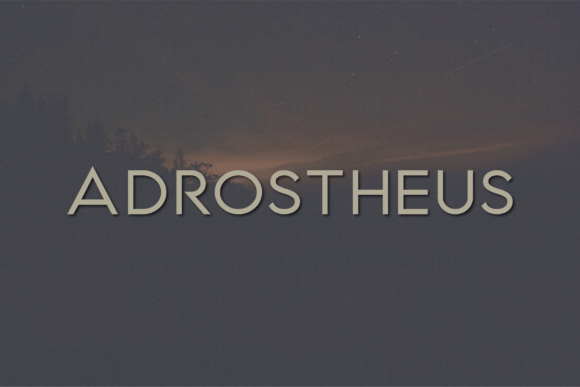
Discover the Elegance of Adrostheus Font
I’ll never forget the time I was working on a wedding invitation project, and my client asked for a font that was both modern and classy. I scoured the internet, tried out countless fonts, but nothing seemed to fit the bill. That was until I stumbled upon Adrostheus, a stunning sans serif typeface that instantly elevated my design. In this article, I’ll share my love for Adrostheus, its features, and how to make the most of it in your designs.
What Makes Adrostheus Special?
Adrostheus is a versatile sans serif typeface that includes upper characters, numbers 0-9, and a range of punctuation and symbols. Its clean lines and modern aesthetic make it perfect for a wide range of applications, from logos, weddings, and invitations to quotes, advertisements, print, magazines, and more!
Here’s what I love about Adrostheus:
- ✨ Extremely versatile and adaptable to various design projects
- ✅ Clean and modern sans serif design
- ✅ Includes a wide range of characters, numbers, and symbols
- ✅ Perfect for both digital and print designs
And here are some minor quirks to keep in mind:
- ⚠️ Some users might find the font a bit too minimalist for certain projects
- 🤔 Limited stylistic alternates, but still offers great flexibility
The Story Behind Adrostheus
Adrostheus was designed with the goal of creating a modern, classy sans serif typeface that could be used in a wide range of applications. The designer drew inspiration from classic sans serif fonts, while incorporating modern elements to create a unique and versatile font.
| What type of projects is Adrostheus best suited for? | Adrostheus is perfect for logos, weddings, invitations, quotes, advertisements, print, magazines, and more! |
| Does Adrostheus include OpenType features? | Yes, Adrostheus includes OpenType features, such as ligatures and stylistic alternates, to add visual interest to your text. |
| Is Adrostheus easy to read? | Yes, Adrostheus is designed to be highly legible, making it perfect for body text and long-form content. |